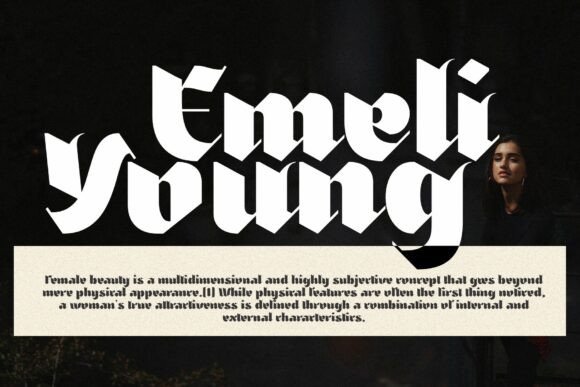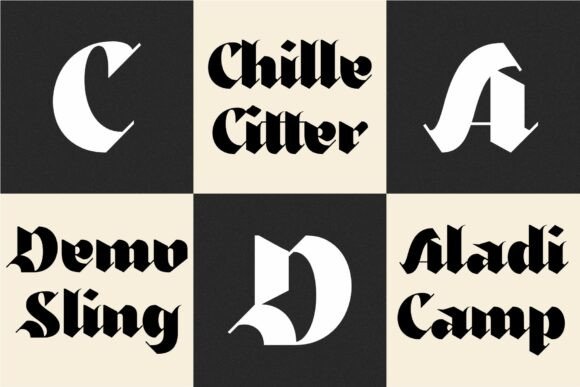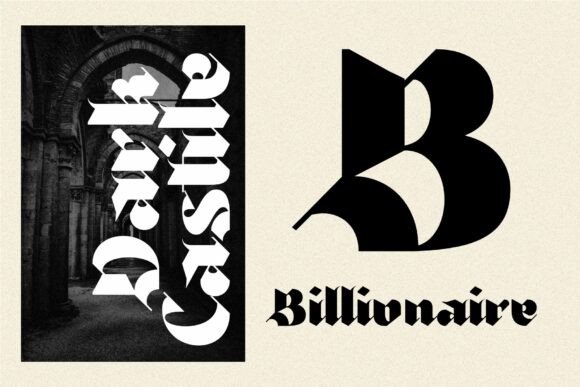
Introducing the Calter Font: A Bold and Commanding Gothic Blackletter Typeface
In the world of typography, few fonts can command attention and evoke a sense of history and drama like the Calter font. This bold and commanding Gothic Blackletter typeface merges historical gravitas with a clean, contemporary edge, making it the perfect choice for designers and crafters looking to add a touch of authenticity and intense visual interest to their projects.
A Font with Historical Roots
The Calter font is rooted in traditional Gothic Blackletter typography, characterized by its angular strokes and dramatic thick-and-thin contrast. These classic features instantly lend any design an air of authenticity and gravitas, evoking the ornate manuscripts and monumental architecture of centuries past. However, despite its historical roots, the Calter font has been carefully crafted to feel surprisingly versatile and modern.
A Versatile Design
One of the standout features of the Calter font is its versatility. While it excels as a high-impact display font, it’s also capable of adding depth and narrative to a wide range of design projects. Whether you’re working on a logo, album art, merchandise, or dramatic poster headlines, the Calter font is sure to make a lasting impression. Its bold and commanding presence can be used to inject a sense of drama and intensity into your branding, appealing to both traditionalists and modern graphic designers alike.
Pairing with Modern Design Elements
To truly unlock the potential of the Calter font, try pairing it with modern design elements like foliage, abstract shapes, or bold colors. This juxtaposition of old and new creates a visually striking contrast that can add an extra layer of depth and interest to your design. For example, imagine using the Calter font to create a dramatic headline for a poster, paired with delicate illustrations of leaves or flowers. The result is a design that’s both eye-catching and thought-provoking.
The Calter font is a perfect choice for designers and crafters looking to elevate their projects with a touch of drama and sophistication. Whether you’re working on a commercial project or a personal passion project, this font is sure to help you stand out from the crowd. Here are just a few ways you can use the Calter font to take your design to the next level:
- Logos and branding: Use the Calter font to create a bold and memorable logo that commands attention and evokes a sense of history and tradition.
- Album art and music design: Add a touch of drama and intensity to your album art or music design with the Calter font’s bold and commanding presence.
- Merchandise and apparel: Use the Calter font to create eye-catching and memorable designs for t-shirts, hoodies, and other merchandise.
- Poster headlines and advertising: Make a lasting impression with dramatic poster headlines that showcase the Calter font’s bold and commanding presence.
Key Features of the Calter Font
So what sets the Calter font apart from other Gothic Blackletter typefaces? Here are just a few key features that make this font a standout:
- Bold and commanding presence: The Calter font is designed to command attention and evoke a sense of drama and intensity.
- Traditional angular strokes: The font’s traditional angular strokes and dramatic thick-and-thin contrast give it a sense of history and authenticity.
- Clean and contemporary edge: Despite its historical roots, the Calter font has been carefully crafted to feel surprisingly versatile and modern.
- High-impact display font: The Calter font excels as a high-impact display font, making it perfect for logos, album art, merchandise, and dramatic poster headlines.
In conclusion, the Calter font is a bold and commanding Gothic Blackletter typeface that merges historical gravitas with a clean, contemporary edge. With its traditional angular strokes, dramatic thick-and-thin contrast, and surprisingly versatile design, this font is perfect for designers and crafters looking to add a touch of authenticity and intense visual interest to their projects. Whether you’re working on a commercial project or a personal passion project, the Calter font is sure to help you stand out from the crowd and make a lasting impression.